Steampunk fonts aren’t just letters on a page – they’re portals to an alternate reality where steam-powered machines rule the world and top hats never go out of style. I’ve spent countless hours exploring the intricate details of these mechanical masterpieces, and let me tell you, the craftsmanship is incredible.
Whether you’re designing a book cover for the next great steampunk novel, creating branding for a vintage-inspired business, or just want to add some Victorian flair to your projects, the right steampunk font can make all the difference.
In this comprehensive guide, we’ll dive deep into the fascinating world of steampunk typography. So grab your goggles, fire up the boiler, and let’s embark on this typographic adventure through time!
The Most Gear-Turning Steampunk Fonts of 2026
Let’s face it, not all steampunk fonts are created equal. Some capture that perfect blend of Victorian elegance and industrial grit, while others fall flat. I’ve compiled a list of the most captivating steampunk fonts that truly embody the spirit of the genre:
Aston Vintage Color Font
Aston is a vintage-inspired color font with a Victorian flair. This decorative serif typeface features built-in color elements, allowing designers to easily create eye-catching retro designs with a vibrant, multi-colored appearance.
Aged Machine
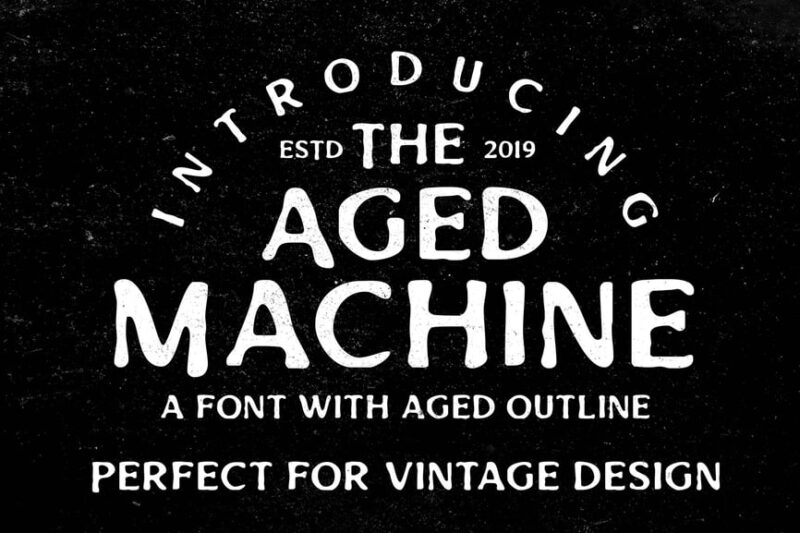
Aged Machine is a vintage-inspired font that mimics the look of weathered, antique machinery. Its distressed appearance and industrial characteristics make it ideal for projects requiring a rugged, time-worn aesthetic.
Ronders
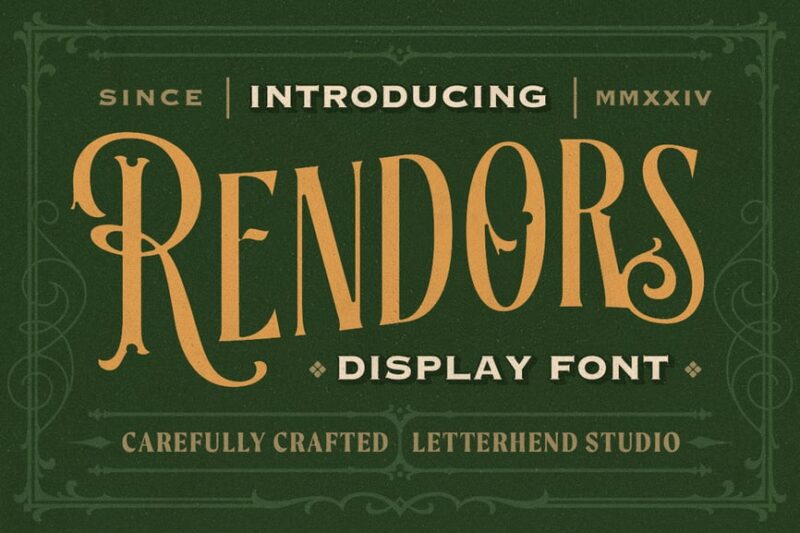
Ronders is a decorative font that blends art deco and antique styles. Its elegant curves and geometric shapes evoke the glamour of the 1920s and 30s, making it perfect for vintage-inspired designs and luxury branding.
Omnivorous Typeface
Omnivorous is a Victorian-inspired vintage font with a retro flair. Its intricate details and ornate letterforms make it suitable for creating eye-catching headlines and logos with a classic, sophisticated touch.
Constreu
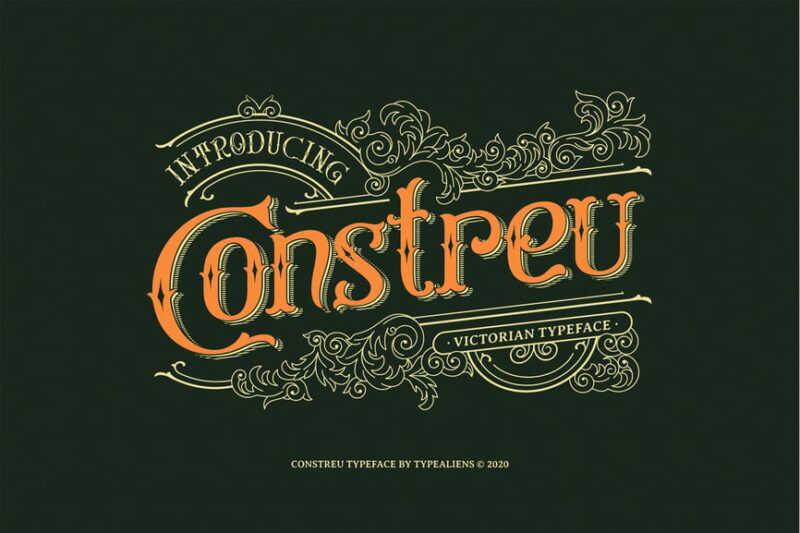
Constreu is a decorative font that combines Victorian and antique elements. Its elaborate design features intricate details and flourishes, making it ideal for creating vintage-inspired titles and ornamental text in design projects.
Stay Alive
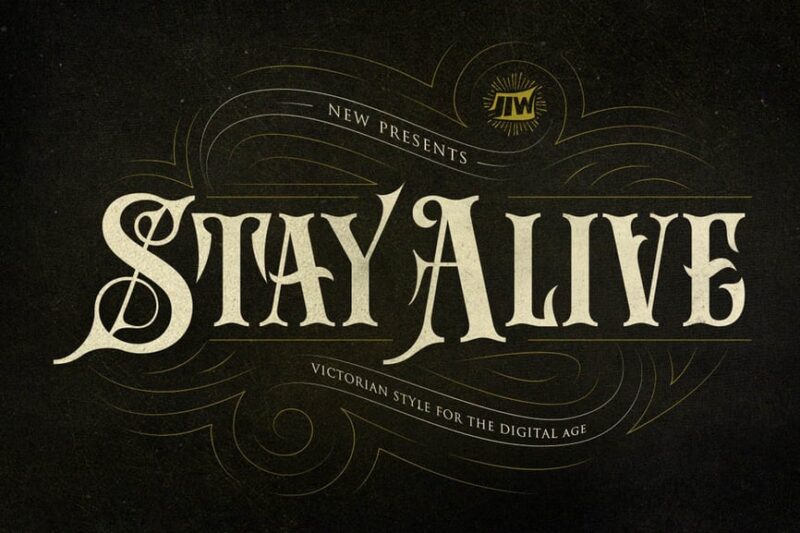
Stay Alive is a Victorian-style serif font adapted for the digital age. It blends traditional Victorian typography with Art Nouveau influences, creating a unique typeface that bridges the gap between classic and contemporary design.
Maeldives
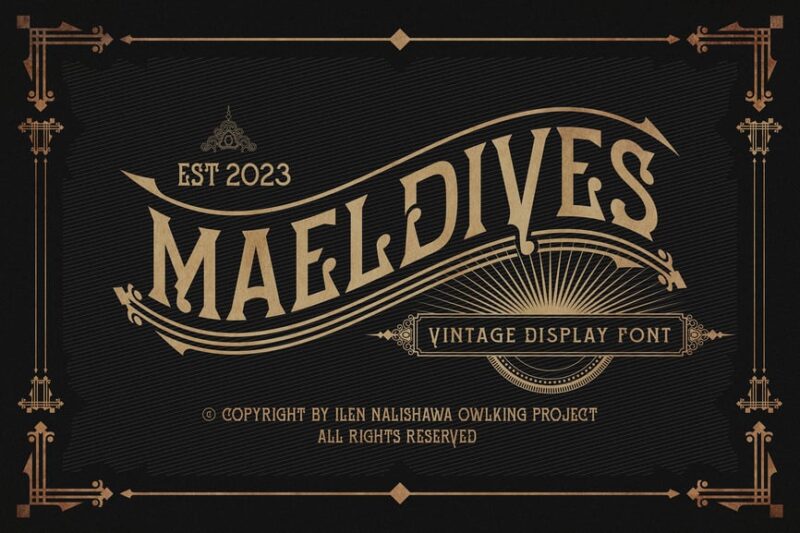
Maeldives is a golden font that combines Victorian elegance with a touch of wine-inspired flair. Its ornate letterforms and flowing lines make it perfect for creating sophisticated, vintage-style designs for upscale branding or packaging.
Hermona Vintage
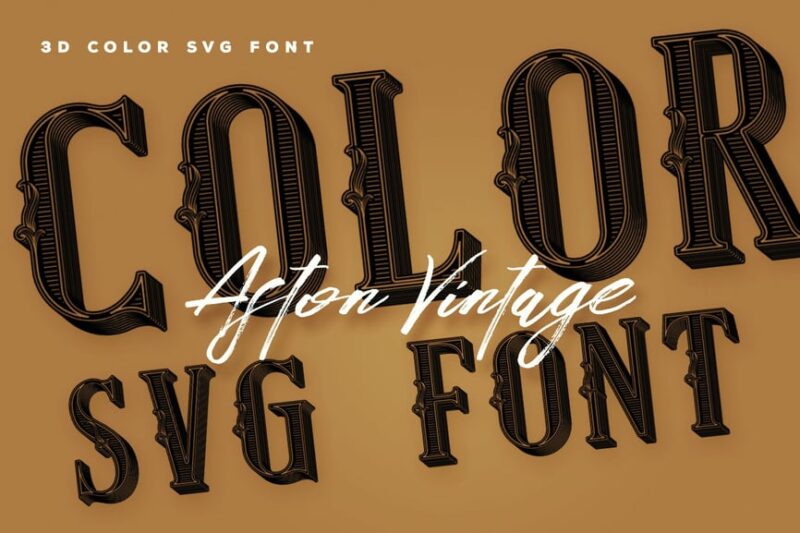
Hermona Vintage is a serif font with a nostalgic barber shop aesthetic. Its vintage-inspired design combines classic typography with subtle decorative elements, making it perfect for creating retro-style logos and branding materials.
Montern Vintage Font
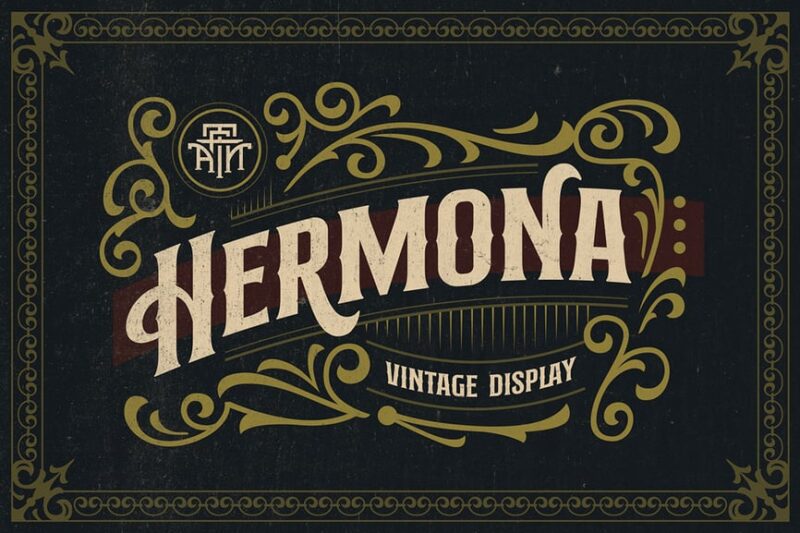
Montern is a vintage font that blends Western and Victorian styles. Its decorative letterforms evoke the charm of old-fashioned signage, making it ideal for creating rustic, vintage-inspired designs with a touch of Victorian elegance.
Beguns | Simple Victorian
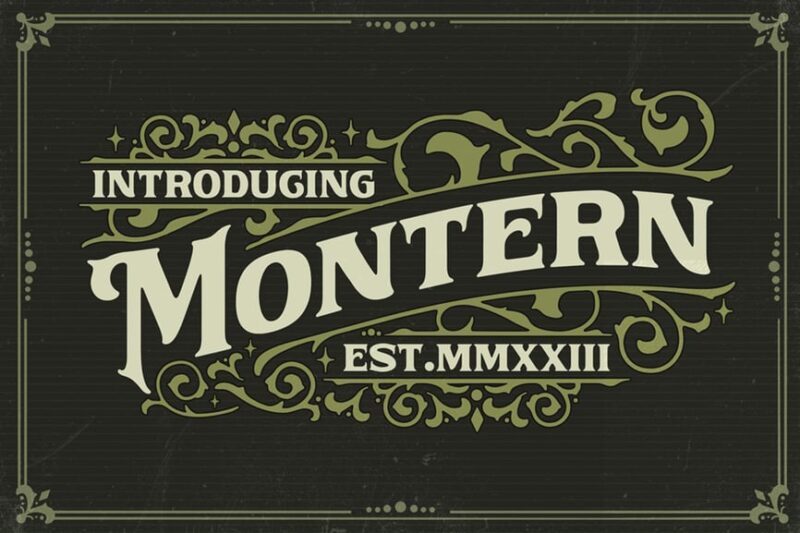
Beguns is a simple almost Western-inspired serif font with gothic and steampunk influences. Its clean lines and subtle vintage details make it versatile for both body text and headlines in projects requiring a touch of historical charm.
Steampunk – 3D Color SVG Font
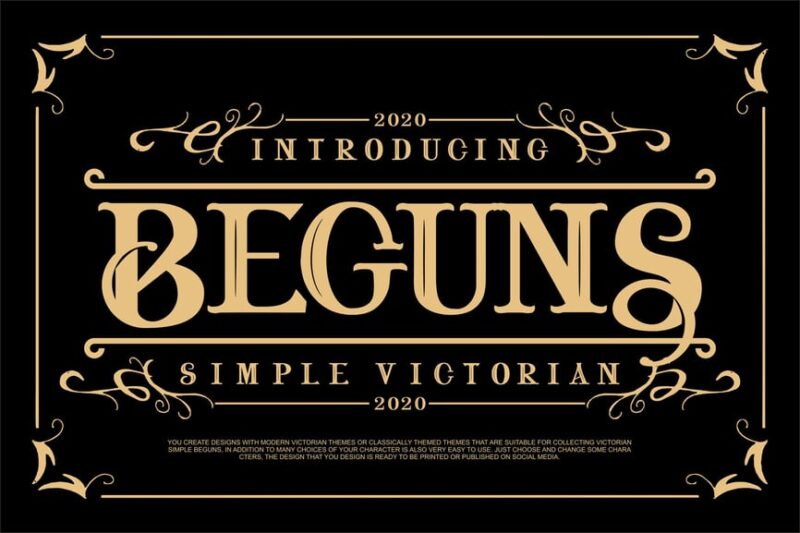
This Steampunk font is a 3D color SVG typeface with a geometric and metallic appearance. Its three-dimensional design and built-in color elements allow designers to create striking, steampunk-inspired text with depth and visual interest.
Starship Typeface
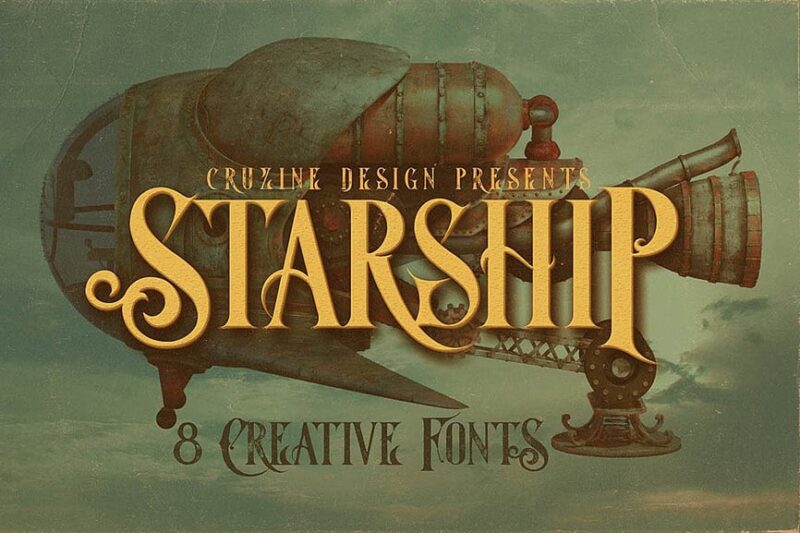
Starship is a decorative serif typeface with a sci-fi and lunar theme. Its unique design combines futuristic elements with classic serif forms, making it perfect for creating eye-catching titles and logos for space-related or science fiction projects.
Octopus – Vintage Style Font
Octopus is a vintage-style serif font with a grunge aesthetic. Its distressed appearance and retro design make it ideal for creating authentic-looking vintage typography in posters, logos, and other graphic design projects.
So fire up those boilers, adjust your goggles, and let these magnificent fonts transport your designs to the golden age of steam. After all, in the world of steampunk typography, every project is an adventure waiting to unfold.
Remember, the best steampunk designs don’t just use these fonts – they celebrate them. Let the intricate gears, elegant curves, and industrial details shine through in your work. Your audience will thank you for the journey through time.